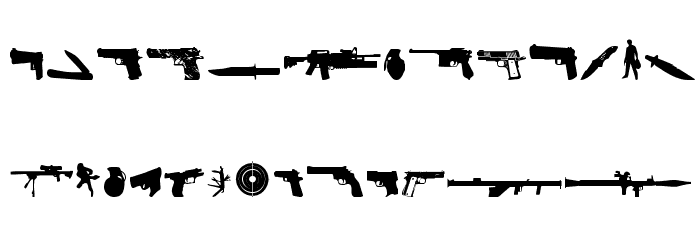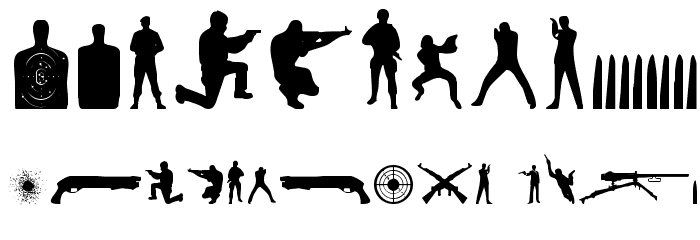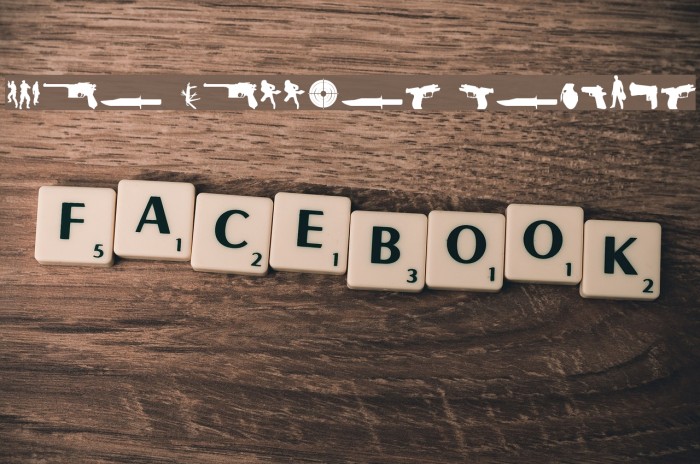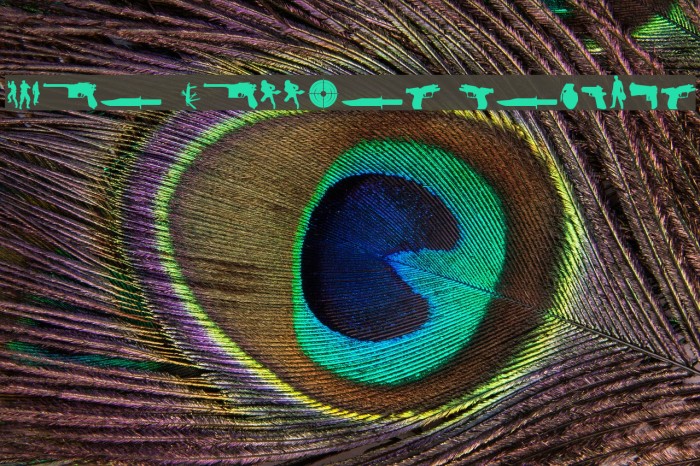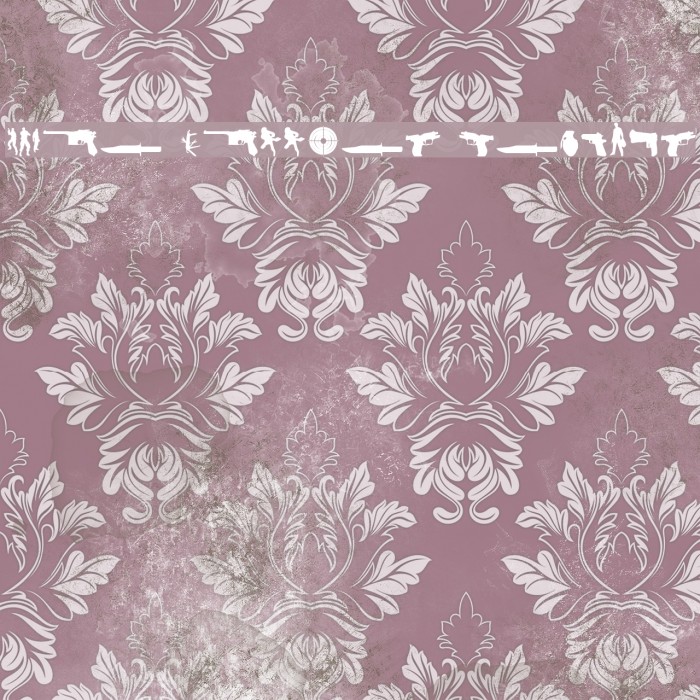
The Shooter Regular Font
This is a decorative font featuring silhouettes of various firearms, weapons, and related figures. Each character is represented by a different weapon or figure, creating a bold and thematic visual style. The imagery includes pistols, rifles, knives, and human figures in action poses, making it highly distinctive and thematic. The font is designed to convey a sense of action and intensity, suitable for projects that require a strong visual impact. The characters are tightly spaced, enhancing the compact and dense appearance of the font. The style is modern and illustrative, focusing on creating a striking visual narrative through its unique character set.
A decorative font with silhouettes of weapons and action figures.
- Proposed Projects: Ideal for use in video game graphics, movie posters, or themed event promotions where a bold, action-oriented aesthetic is desired.
- Character Spacing: Tight
- Use Case: Logos, Posters, Themed Graphics